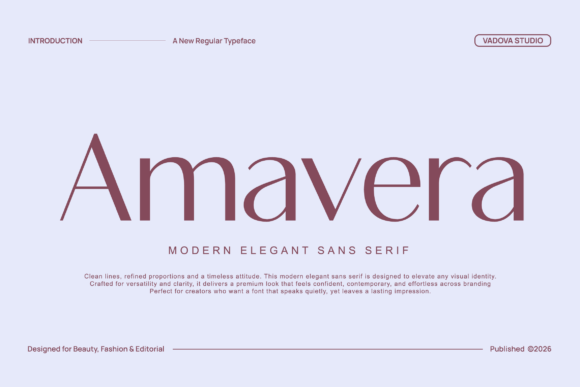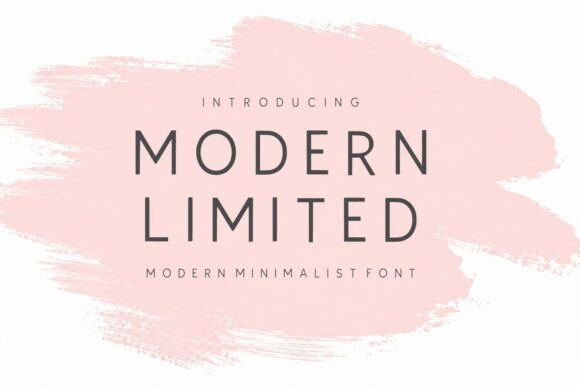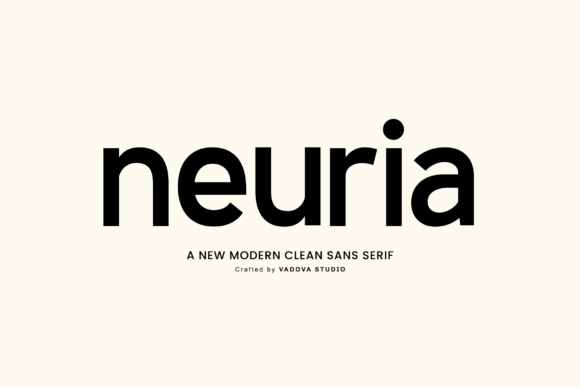
19 Clean Modern Minimalist Fonts for Logos (2026)
Modern minimalist fonts for logos do the hardest thing in design: say a lot with very little. Strip a wordmark back to clean lines and even spacing and it reads confident, current and expensive, with nothing to date it. That restraint is exactly why modern minimalist fonts for logos suit tech, beauty, fashion and lifestyle brands alike.
This guide sorts 19 fonts by the job they do on a logo, clean wordmarks, bold minimal statements, condensed options and warmer minimal faces, so you can pick by use.
How to use modern minimalist fonts for logos
Minimalism is easy to get wrong by under-doing it. A few habits keep modern minimalist fonts for logos looking intentional, not empty.
• Spacing is the design: open the letter-spacing so the wordmark breathes.
• One weight, done well: pick a single weight and commit rather than mixing many.
• Reverse test: minimal logos must read white on dark, so check both.
• Keep it short: minimal type flatters a short name and tidies a long one.
Clean minimalist sans for logo wordmarks
Start here. These clean modern minimalist fonts for logos make calm, confident wordmarks that read at any size.
Modern Limited
Modern Limited is a sophisticated minimalist sans built for clean, contemporary design. Among modern minimalist fonts for logos it is a calm, dependable wordmark, with even forms that read at any size. Use it with open spacing and a single weight for the name, and the same family for detail. It reverses cleanly on dark. For a brand that wants a quiet, confident minimalist logo, Modern Limited is a reliable sans worth a close look.
Amavera
Amavera is a modern elegant sans defined by clean lines and balanced proportions. Among modern minimalist fonts for logos it feels refined rather than plain, so a wordmark reads designed. Use it for the name and the same family for supporting text, with generous spacing. The balance keeps it legible small. For a brand that wants an elegant minimalist logo with quiet polish, Amavera is a graceful sans worth trying.
Neuria
Neuria is a modern clean sans built with precision and clarity. Among modern minimalist fonts for logos it is the most exact, with crisp forms that suit tech, beauty and contemporary brands. Use it for the wordmark with open tracking and a single weight. The precise build stays sharp small and reverses well. For a brand that wants a precise, modern minimalist logo, Neuria is a sharp sans worth a look.
Velafine
Velafine is a razor-sharp elegant sans for absolute minimalist luxury. Among modern minimalist fonts for logos it leans premium, with fine, exact forms that read upscale. Keep the spacing open and the layout simple so the sharpness shows. It suits luxury and beauty wordmarks. For a brand that wants a minimalist logo that reads expensive, Velafine is a refined sans worth a closer look.
Velora
Velora drapes a design in ultra-sophisticated minimalism. Among modern minimalist fonts for logos it is the quietest, a pared-back wordmark for a brand that trusts white space. Use it large with very open tracking and almost no decoration. The restraint reads as confidence. For a brand that wants the calmest possible minimalist logo, Velora is an elegant sans worth a look.
Baner
Baner is a refined, sophisticated sans crafted to bring elegance to clean layouts. Among modern minimalist fonts for logos it is a flexible wordmark, calm enough for a serious brand and warm enough not to feel cold. Use it for the name and the same family for detail. The refined forms read well across sizes. For a brand that wants a polished, minimalist logo, Baner is a dependable sans worth trying.
Cupidra
Cupidra is a sleek, elegant modern sans with clean geometry. Among modern minimalist fonts for logos it reads contemporary and a little fashion-forward, suiting beauty and lifestyle wordmarks. Use it with open spacing and a single weight for the name. The geometry keeps it crisp small. For a brand that wants a sleek, modern minimalist logo, Cupidra is a sharp sans worth a closer look.
Minimal
Minimal is a clean, contemporary display sans built for modern brands. Among modern minimalist fonts for logos it is exactly what it says, a stripped-back wordmark with no excess. Use it large with open tracking for the name and a plain text sans for detail. The simple forms read confident. For a brand that wants a no-nonsense minimalist logo, Minimal is a tidy display sans worth a look.